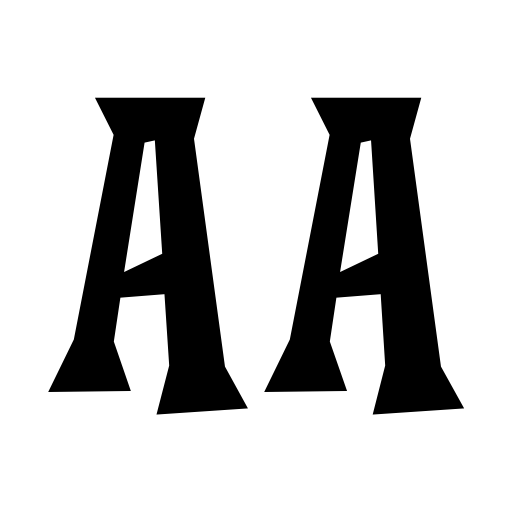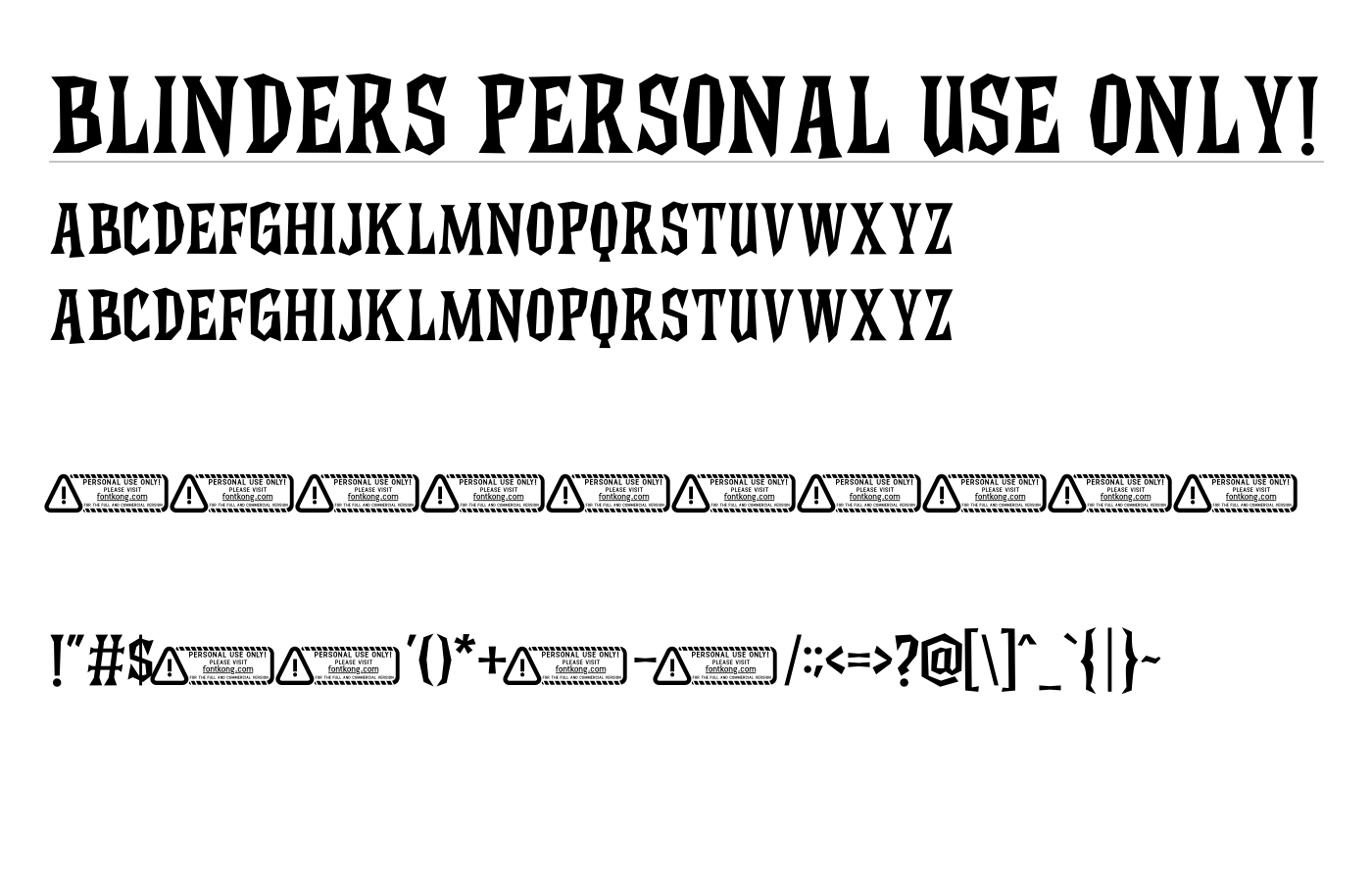
Blinders is a bold, condensed serif font with a distinctive vintage Western style characterized by sharp, angular serifs and strong contrast between thick and thin strokes. Its all-caps design with unique letter shapes and a slightly rugged edge makes it perfect for creating impactful headlines, posters, and branding that seeks to convey a bold, adventurous spirit. This font works especially well in projects needing a dramatic and historic feel, such as vintage-themed designs, event posters, or logos with a rugged personality.
Blinders PERSONAL USE ONLY! Font
About Blinders PERSONAL USE ONLY! Font